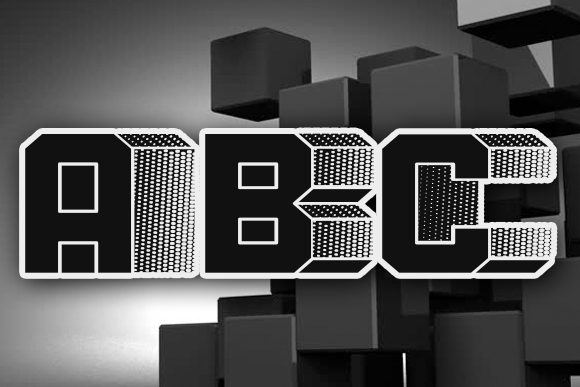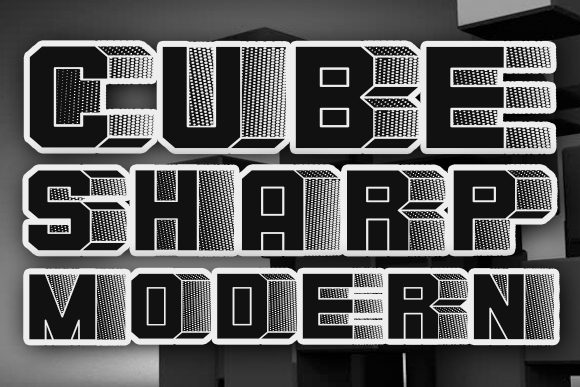
Introducing Blocchi Font: Add a Retro Touch to Your Projects
Are you looking for a unique and decorative font to give your projects a special retro touch? Look no further than Blocchi Font! This distinctive font is designed to add a vintage flair to your designs, and it’s perfect for crafters, designers, and anyone looking to add some personality to their work.
What is Blocchi Font?
Blocchi Font is a one-of-a-kind decorative font that comes in both regular and reverse versions. This means you can use it in a variety of creative ways, from adding a subtle background texture to creating eye-catching headlines. The font’s unique design features block-like shapes that give it a retro feel, reminiscent of classic video games, 80s posters, and vintage advertisements.
Key Features of Blocchi Font
- Unique Design: Blocchi Font boasts a distinctive design that’s unlike any other font out there. Its block-like shapes and retro aesthetic make it perfect for adding a touch of nostalgia to your projects.
- Regular and Reverse Versions: The font comes in both regular and reverse versions, giving you flexibility and creative freedom.
- High-Quality: The font is designed with high-quality and clarity in mind, ensuring it looks great in any size or application.
How to Use Blocchi Font in Your Projects
Blocchi Font is versatile and can be used in a variety of projects, including:
- Graphic Design: Use Blocchi Font to add a retro touch to your posters, flyers, brochures, and other graphic design projects.
- Crafting: Add a personal touch to your crafting projects, such as scrapbooking, card making, and DIY signs.
- Digital Design: Use Blocchi Font in your digital designs, including social media graphics, blog posts, and website headers.
Tips for Getting the Most Out of Blocchi Font
Here are some tips for using Blocchi Font effectively in your projects:
- Experiment with Colors: Try pairing Blocchi Font with different colors to create unique and eye-catching combinations.
- Mix and Match: Combine Blocchi Font with other fonts to create interesting and dynamic typography.
- Play with Texture: Use the reverse version of Blocchi Font to add texture and depth to your designs.
Blocchi Font is a unique and decorative font that’s perfect for adding a retro touch to your projects. With its regular and reverse versions, ease of use, and high-quality design, it’s an excellent choice for designers and crafters looking to add some personality to their work. Whether you’re working on a graphic design project, crafting, or digital design, Blocchi Font is sure to make your projects stand out.